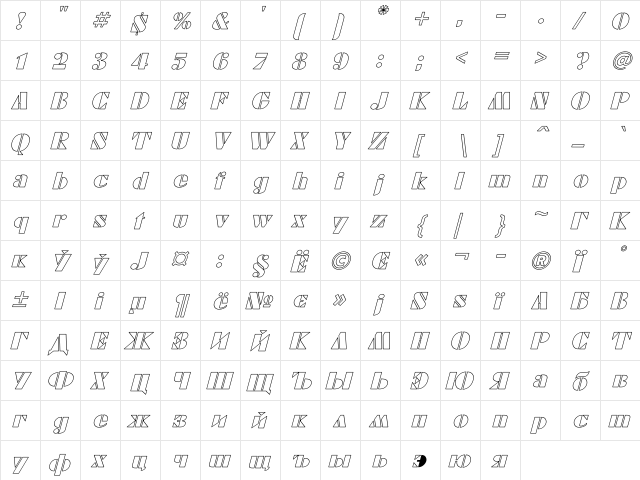
FuturaEugenia Ho Italic Font Preview
FuturaEugenia Ho Italic
Design Context for FuturaEugenia Ho Typeface
FuturaEugenia Ho has a distinctly futuristic character, with geometric precision and clean angles that feel at home in technology, gaming, and sci-fi contexts. Its italic angle brings a sense of urgency and motion to the letterforms.